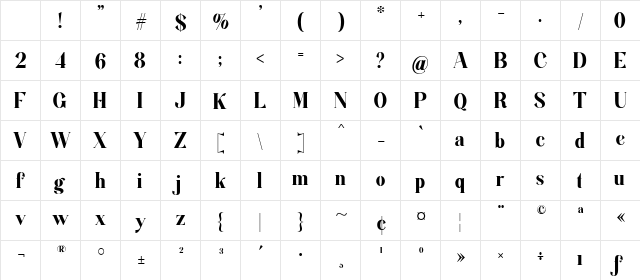
Complete Ardhelia Regular glyph index. Displaying only characters natively supported by Ardhelia Regular font.
Ardhelia is a composed and adaptable typeface that performs quietly and consistently across a wide range of design contexts.
Pro Tip: Use Ardhelia in both headline and body roles to test its range before committing to a single application.